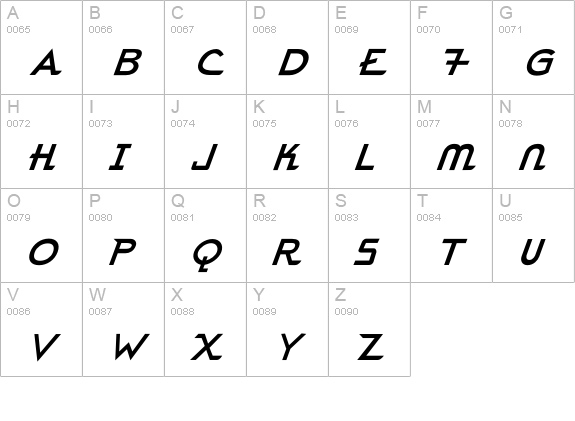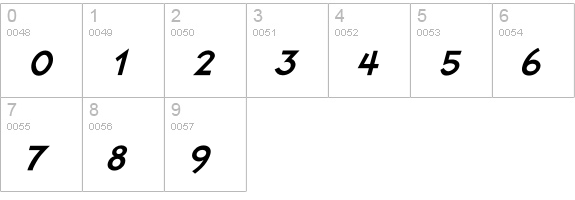
Parkway-Hotel Font Details
Introducing Parkway-Hotel, a captivating font that exudes elegance and sophistication. This font is the perfect choice for any design project that aims to make a lasting impression. With its sleek and modern design, Parkway-Hotel effortlessly combines classic charm with contemporary flair. The versatility of Parkway-Hotel is truly remarkable. Whether used for branding, packaging, invitations, or any other creative endeavor, this font will elevate your designs to new heights. Its clean lines and balanced proportions create a sense of harmony and visual appeal, making it a go-to choice for professionals and enthusiasts alike. One of the standout features of Parkway-Hotel is its extensive character set. With a wide range of uppercase and lowercase letters, numerals, punctuation marks, and special characters, this font offers endless possibilities for customization and personalization. Whether you're looking to create a bold statement or a delicate touch, Parkway-Hotel has the perfect letterform for every occasion. And the best part? Parkway-Hotel is available for free download exclusively at FontsMarket.com. That's right, you can enhance your design projects with this exceptional font without spending a dime. FontsMarket.com is a trusted source for high-quality fonts, and their commitment to providing free access to Parkway-Hotel ensures that creativity knows no boundaries. So why wait? Elevate your designs and make a lasting impression with Parkway-Hotel. Download it for free now at FontsMarket.com and let your creativity soar.